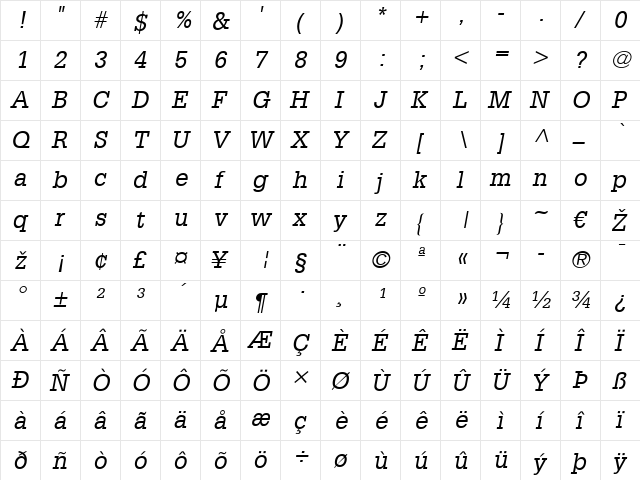
Glypha LT Italic Font Preview
Glypha LT Italic
Glypha LT Italic Font Details
| Designer | Adrian Frutiger |
Design Context for Glypha LT Typeface
Glypha LT is a composed and adaptable typeface that performs quietly and consistently across a wide range of design contexts. Its italic angle brings a sense of urgency and motion to the letterforms. The delicate stroke weight brings airiness and refinement to layouts.
Pro Tip: Use Glypha LT for emphasis, pull quotes, and subheadings where its slanted energy can add rhythm to the layout.